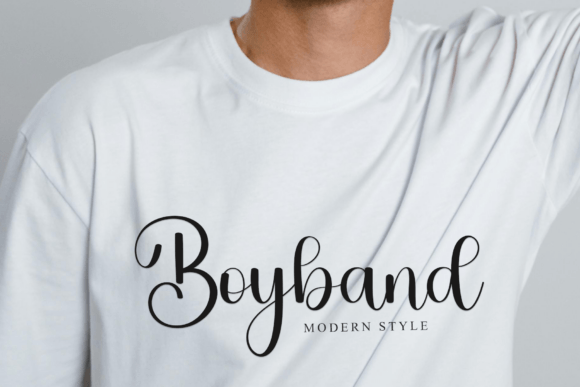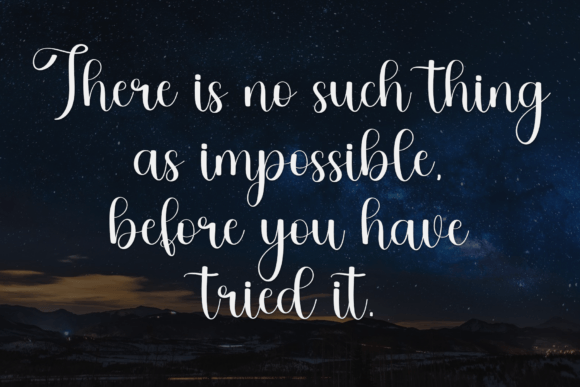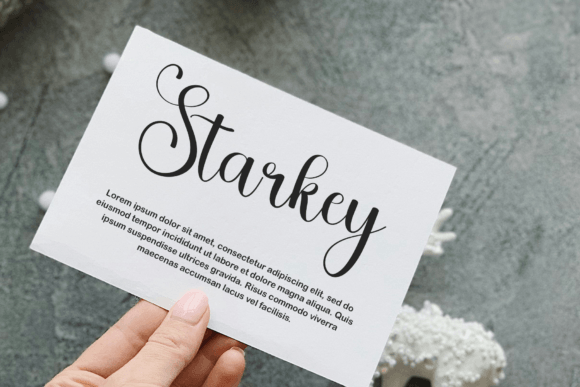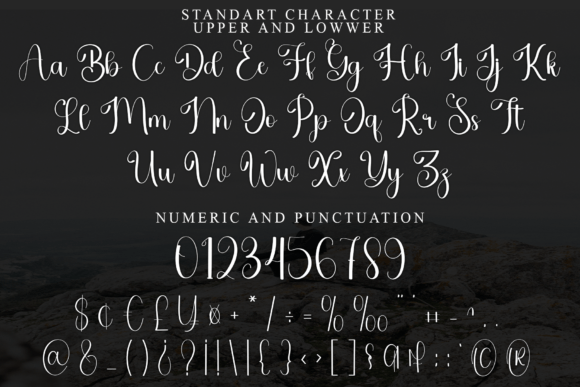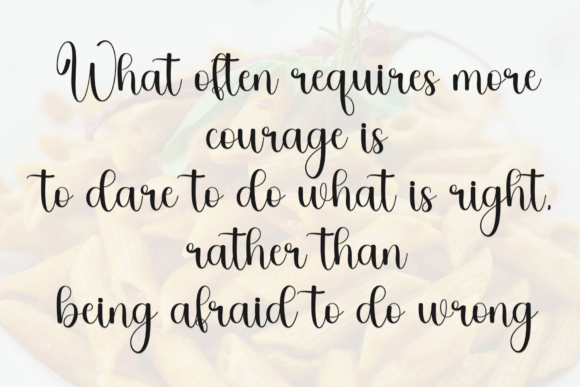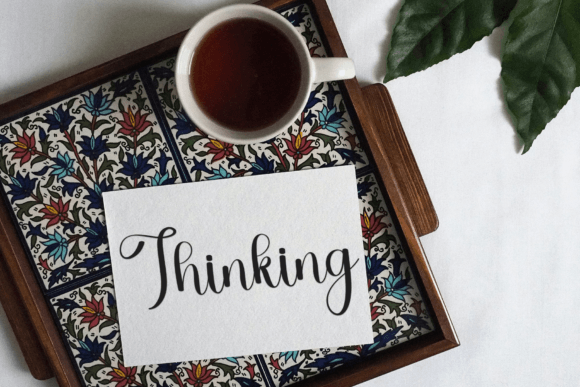
The Magic of Elegant Font: Bringing Holiday Cheer to Your Designs
As the holiday season approaches, you find yourself browsing through your collection of festive decorations, searching for the perfect combination to create a cozy atmosphere. You stumble upon an old, intricately designed ornament that reminds you of the joy and magic of the holiday season. Suddenly, you’re inspired to create a holiday-themed project that captures the essence of this special time of year.
That’s where Elegant Font comes in – a festive and merry typeface designed to add a touch of enchantment to your designs. Perfect for greeting cards, gift tags, and holiday-themed projects, this font brings a cheerful and nostalgic ambiance to your words. With its decorative elements and whimsical flair, Elegant Font is a valuable addition to any designer’s toolkit.
Elegant Font Key Features
- Unique Characteristics: This font features a unique blend of elegance and sophistication, with subtle curves and refined lines that make it perfect for formal and professional settings.
- Font Weight: The font comes in 3 different weights: Light, Regular, and Bold, allowing users to choose the perfect weight for their design needs.
Elegant Font Review
I recently had the chance to work with the Elegant Font, and I must say, it’s a beautiful addition to any design project ✨. The font’s sleek lines and refined curves give it a sophisticated feel that’s perfect for high-end branding or luxury products. The font’s versatility also makes it suitable for a wide range of industries, from fashion to finance.
One of the things I appreciate most about Elegant Font is its legibility. Even at smaller font sizes, the text remains clear and easy to read ✨. The font’s x-height is well-balanced, making it suitable for body text as well as headings.
However, I did encounter a few limitations while working with Elegant Font ⚠️. The font’s limited font weight options can make it challenging to create a consistent look across different elements of a design. Additionally, the font’s bold weight can appear slightly pixelated at smaller font sizes.
Here are some pros and cons to consider:
- ✨ Beautiful design with a sophisticated feel
- ✨ Excellent legibility, even at smaller font sizes
- ⚠️ Limited font weight options
- ⚠️ Bold weight can appear pixelated at smaller font sizes
Overall, I’d give Elegant Font 4 out of 5 stars. While it may have its limitations, the font’s elegant design and excellent legibility make it a great choice for many design projects.
The Elegant Font is ideal for:
1. Business cards and letterheads.
2. Wedding invitations and stationery.
3. Luxury branding and packaging.
4. Editorial and publishing design.